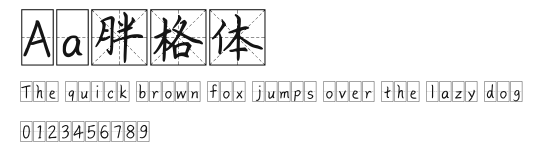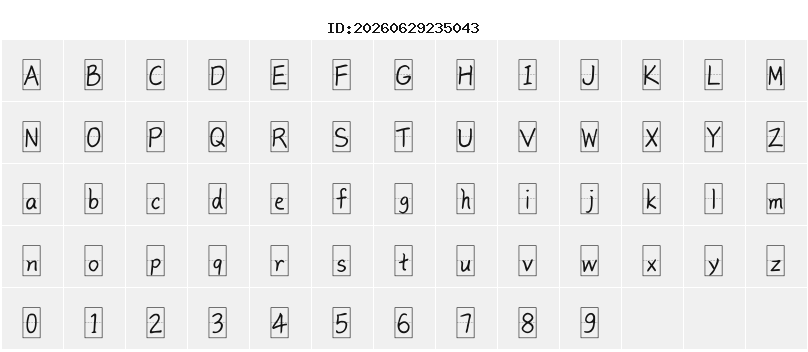
Aa胖格体 Preview
• Font Name: Aa胖格体
• Font Style: 常规
• Font ID: 1.000;Aa;AaWSJKLZT;2016
• Full Font Name: Aa胖格体
• PostScript Name: AaWSJKLZT
• Character Count: 8374
• Designer: Aa
• Description: AaWSJKLZT is a fantastic font with excellent features designed for user interfaces and electronic communications.
Aa胖格体.ttf is a modern, elegant sans-serif font designed for ultimate readability and visual harmony. Perfect for branding, headlines, web design, and print materials.